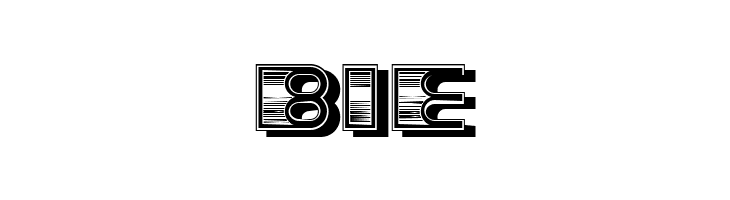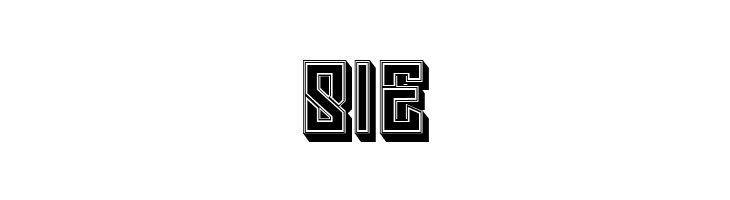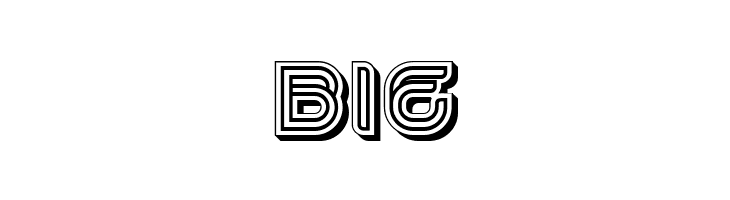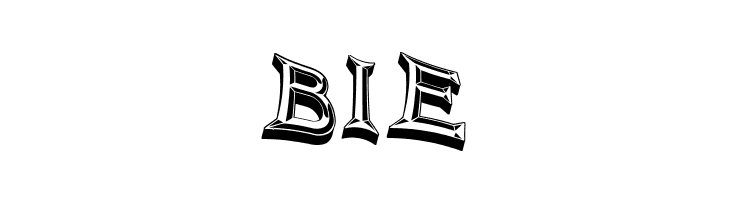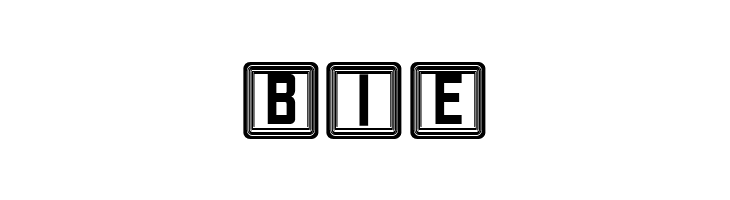
• Novella Regular
A bold, decorative font with a unique striped pattern and high contrast.
• Novgorod Regular
A bold, three-dimensional serif font with a medieval, gothic style.
• Nucleus Regular
A bold, geometric font with a three-dimensional effect and double-line outlines.
• Numbers Regular
A bold, decorative font with a layered outline effect and geometric structure.
• Numerica Regular
A bold, geometric font with a 3D effect, ideal for modern and impactful designs.
• Oberding Regular
A bold, geometric font with characters enclosed in squares, offering a modern, digital feel.
• Object 3D Regular
A bold, 3D geometric font with a modern, futuristic style.
• Object Regular
A 3D grid-style font with a mechanical, industrial look.
• Objective Book Regular
A bold, geometric font with a modern, blocky style.
• Objective Filled Regular
A bold, geometric font with a filled interior and outlined style.